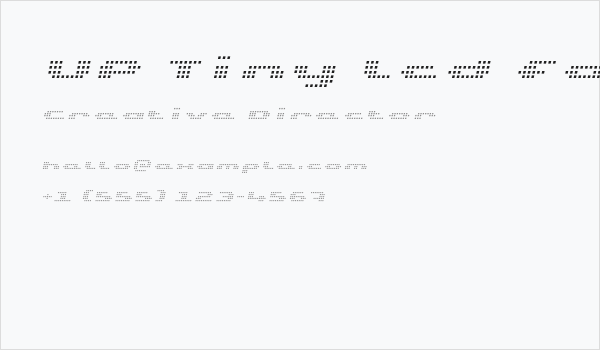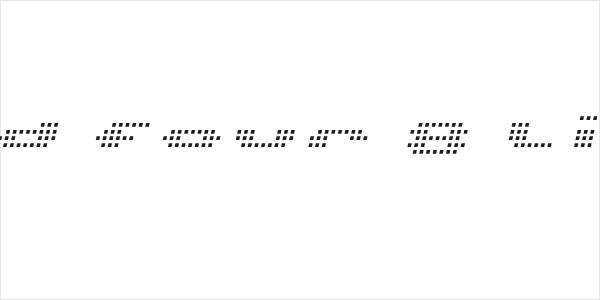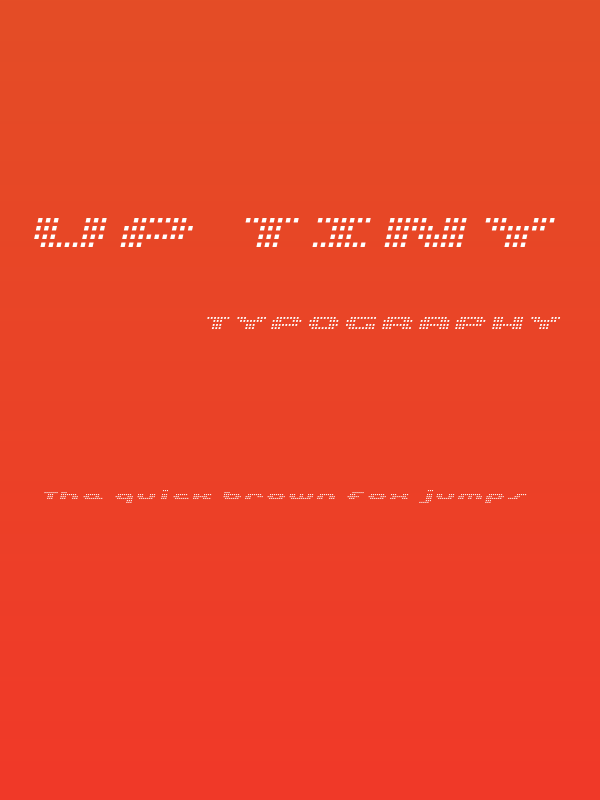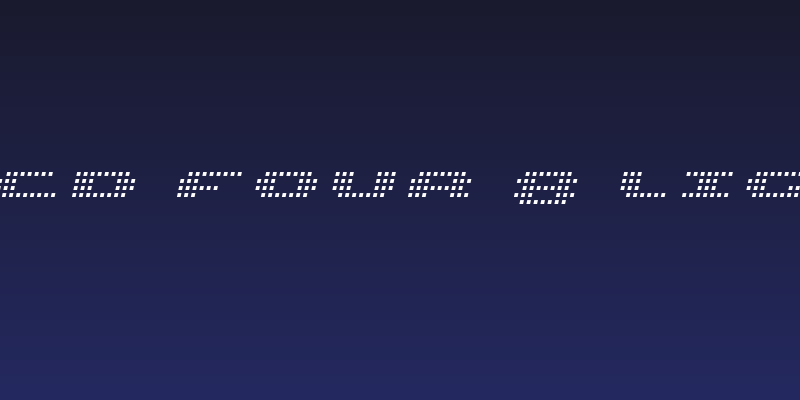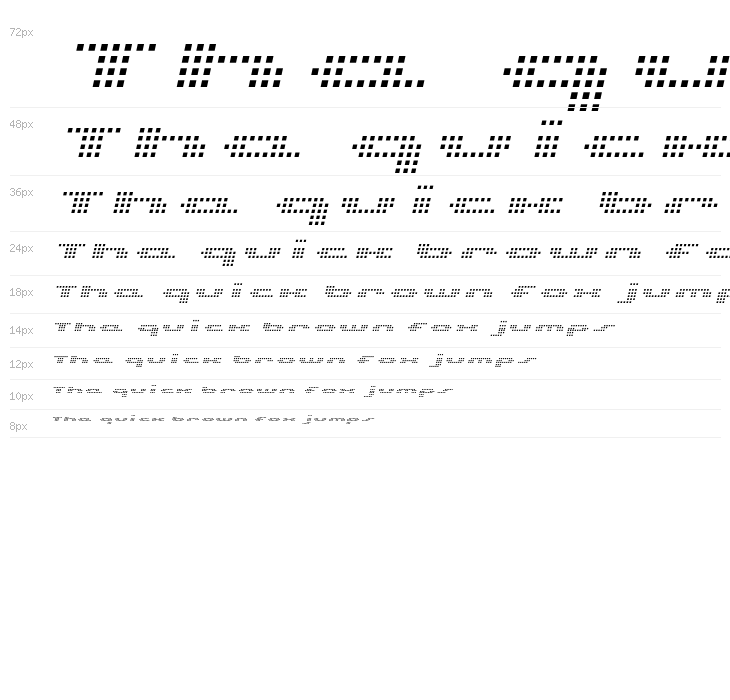
UP Tiny lcd four 8 Light Italic Font
UP Tiny lcd four 8 Light Italic Description
This font is a unique and modern display style that mimics the appearance of an LCD screen. Each character is composed of a grid of small dots, creating a digital and futuristic look. The font is light and italicized, giving it a sleek and dynamic feel. The characters are evenly spaced, maintaining a consistent rhythm across the text. This font is particularly effective for conveying a technological or digital theme, making it ideal for projects that require a modern and innovative touch.
| Proposed Projects | Ideal for digital displays, tech-themed posters, and futuristic branding. |